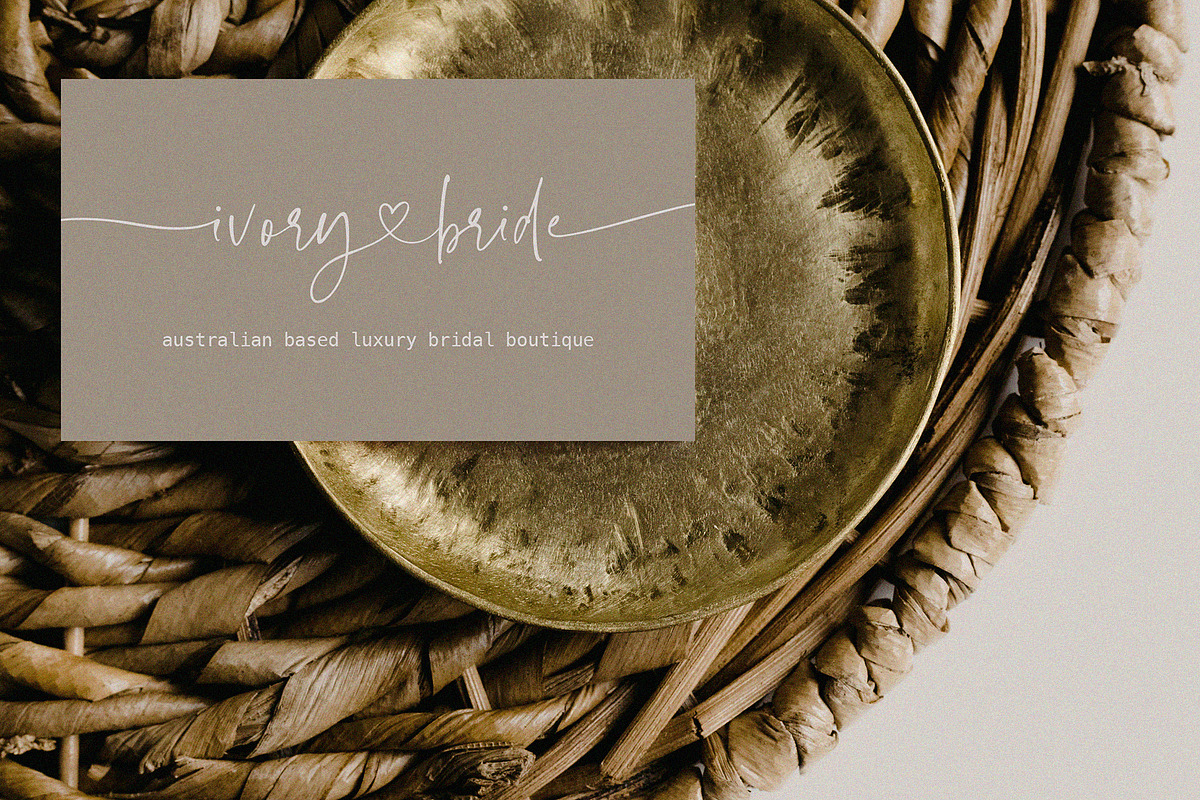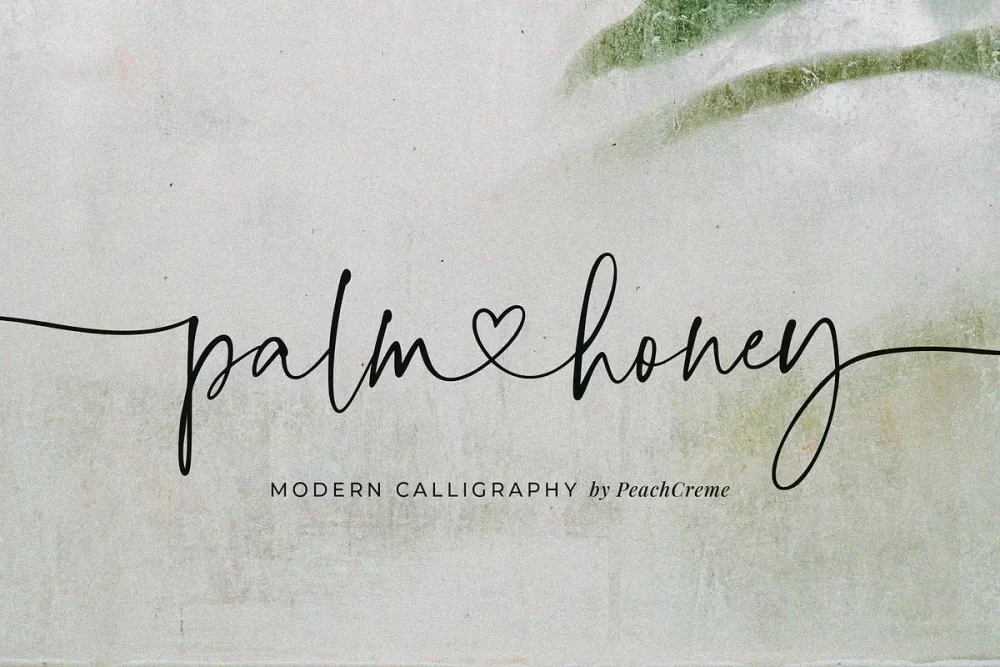
Palm Honey Font
Palm Honey is a modern lovely script font. Palm Honey beautifully works for modern wedding stationery projects. It has beginning lowercase, ending lowercase, connecting heart lowercase alternates.
It is perfectly suited for branding, logotypes, tshirt design, quotes, labels, social media posts, advertisements, product packaging, product designs, label, poster, photography, watermark, invitation, t-shirt design, stationery and any projects that demand classic with modern style.